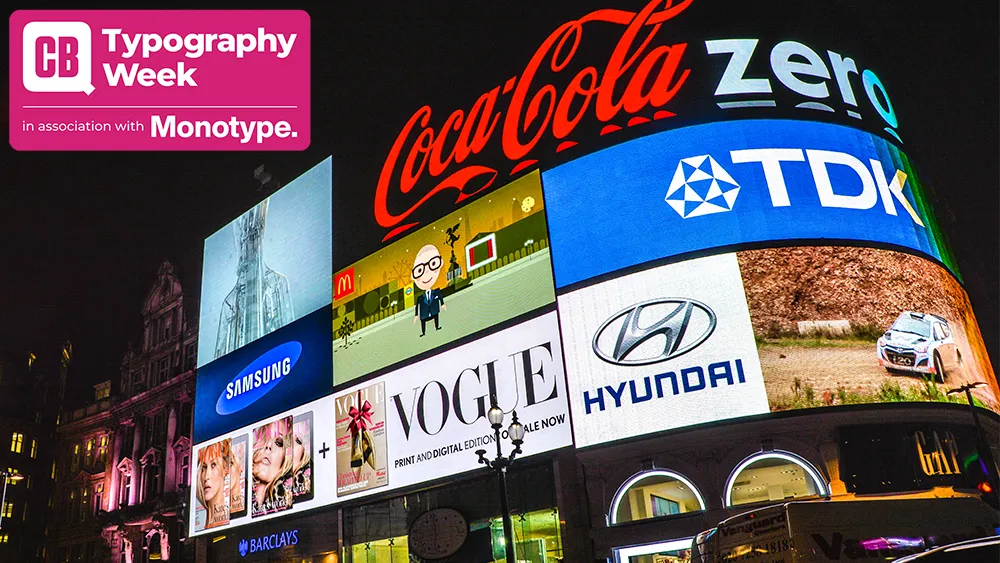
The history of fonts in branding: corporate typefaces through the ages
As part of Typography Week at Creative Bloq, we've been looking at examples of the impact of typography in branding, including the use of fonts in famous logos. But where did the relationship between branding and typography begin, and how has the history of fonts in branding evolved?
Today, typography in branding performs several functions, ensuring consistency while also giving personality and recognition to a corporate identity. The understanding of this power has evolved over time, accompanied by changes in technology and in marketing and advertising, but it's not entirely two, and the two disciplines have developed together. Here we look back at how the history of fonts in branding developed.
The history of fonts in branding: how it all began
Pinpointing the exact start of this relationship is difficult. Typography and branding have evolved in tandem, and it can be tricky to define even when branding became a thing. Even the medieval Carolingian minuscule script could be considered as an early attempt to create a unified representation of a brand through lettering.
Going back to the very beginning, writing has been connected to business ever since the use of proto-cuneiform for correspondence counting in Ancient Sumeria. Tradespeople of various kinds have long used symbols to identify themselves or their guild, but the predecessors of today's brand logos, from silver hallmarks to heraldic symbols, were created for a time when most people were illiterate. The development of typography in branding would require advances in literacy as well as technology.
The birth of print
A major turning point in the history of typography that's taught to almost everyone in the west at school was the development of the printing press by Johannes Gutenberg in the 15th century. This allowed for a growth in literacy because books could be produced on a much larger scale, and it also allowed the development of practical typefaces, which could be designed to have distinct looks.
By the time of the Industrial Revolution, print had given birth to mass communication through signage, posters, newspapers and adverts. This increase in the amount of visual communication, comparable to the increase in digital communication today, meant that messages needed to do more to stand out, just like what we see today with the competition for our attention in the digital realm. This led type makers to to start experimenting with different weights, shading and more experimental serif and sans serif typefaces.
The first corporate typefaces
The use of fonts for branding really took off in the late 19th century and early 20th century as advertising and marketing started to become more sophisticated. By the late 19th century, letting artists were creating recognisable styles for a more standardised look across communications: Alfons Mucha's Art Nouveau posters in advertising, for example, while Eric Gill hand-painted standardised signs and lettering for the British newsagents WH Smith between 1903 and 1907.
Type setters were able to standardise further, creating bespoke corporate typefaces, or brand fonts, for clients. Notable examples include Peter Behrens' work. As architect and artistic director at AEG from 1907 to 1914, he designed everything from a factory to domestic appliances and the company's corporate identity. His gothic-inspired Behrens for the Rudhard’sche Gießerei foundry would serve as the official German typeface for world expositions in 1904 and 1910.
The US metal type designer Frederic Goudy cut custom fonts for several companies, including for the Pabst Brewing Company in 1906 (beer seems to have played a notable role in the history of branding!), Nabisco in 1921 and a collection of typefaces for Saks in 1934. He also made bespoke headline faces for magazines such as the Ladies' Home Companion and Architectural Record.
Speaking of media, the printed press played an instrumental role in the development of custom brand typefaces. In 1931, the British newspaper The Times commissioned Stanley Morison, an artistic adviser to Monotype, to create a typeface that needs no introduction. Times New Roman still comes installed in most word processing software today.
1957: Helvetica is born
We can't truly consider the history of fonts in branding without reserving a space for Helvetica. Originally named Neue Haas Grotesk, the neo-grotesque sans-serif developed by Max Miedinger and Eduard Hoffmann remains one of the most popular typefaces today, and it was one of the first to be specifically named and imposed as an official brand typeface in corporate design manuals.
Licensing to Xerox, Adobe and Apple would go on to cement its wide adoption, and Helvetica continues to influence font design, from Google’s Roboto to Apple’s San Francisco.
The golden age of brand typefaces
The period from the 1960s to 1980s is often characterised as a golden age of advertising, and the same could be said for brand typography. A growing awareness and sophistication in the implementation of design systems saw large organisations in both private and public sectors impose style guides, while people like Adrian Frutiger and Otl Aicher refined the concept of corporate design.